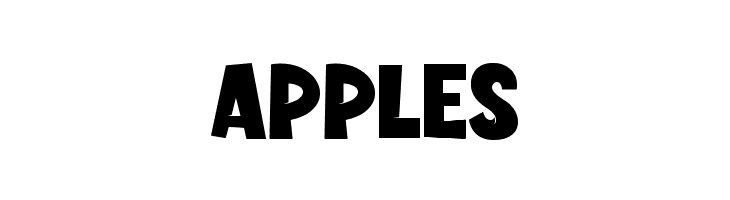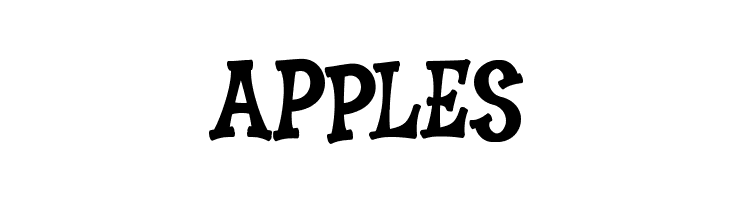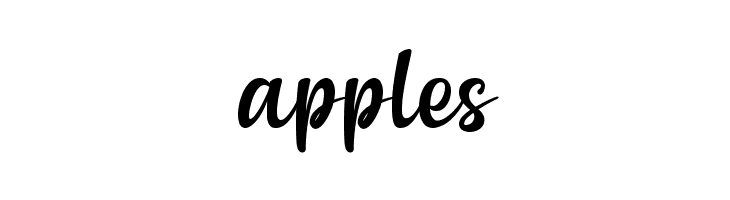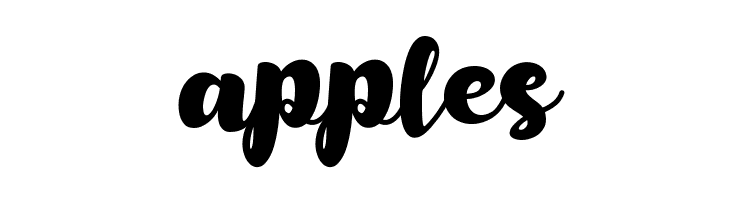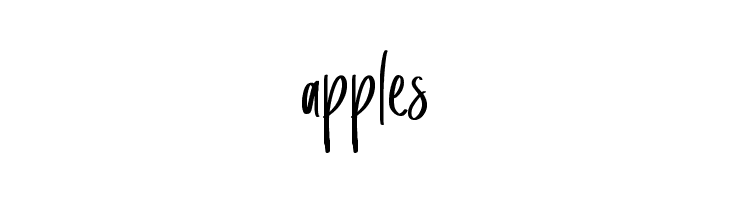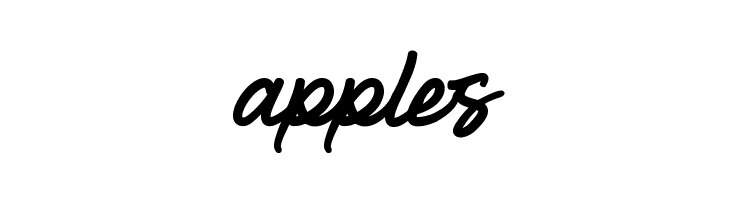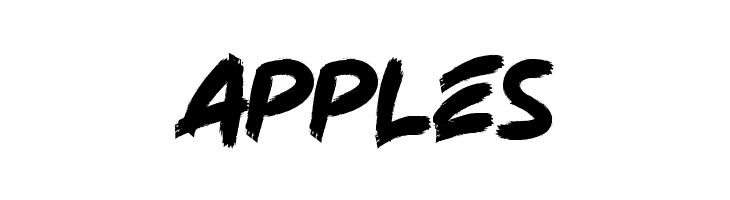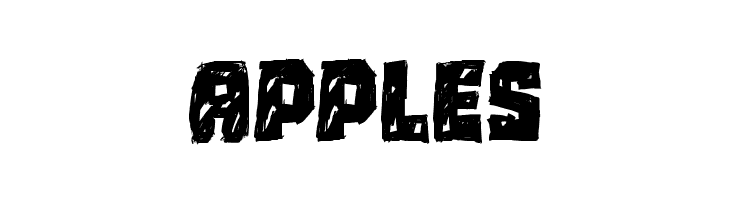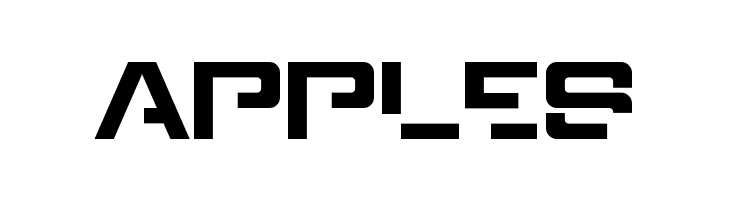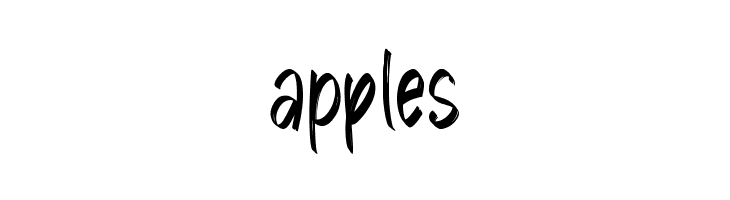
A bold, dynamic script font with flowing, cursive letterforms.
A graceful, handwritten script font with elegant, flowing strokes.
A bold, distressed font with a rugged, grunge-like appearance.
A bold, cursive font with a smooth, flowing handwritten style.
A delicate and flowing script font with elegant, fluid letterforms.
A playful and artistic font with unique, dynamic letterforms.
A bold, geometric font with strong, angular shapes ideal for impactful headlines.
A bold, dynamic font with a playful, edgy style and exaggerated serifs.
A bold, brush-style font with an energetic and artistic appearance.
A playful, handwritten font with tall, narrow letters and a casual elegance.
A dynamic and flowing script font with elegant, cursive strokes.
A bold, flowing script font with smooth, connected strokes and rounded edges.
A bold, flowing script font with a modern calligraphic style.
A bold, textured font with a bandage-like design, perfect for thematic and creative projects.
Bold, rounded handwritten font with a playful and casual style.
A bold, geometric font with a modern and dynamic style.
A bold, geometric font with a futuristic and industrial design.
A bold, expressive brush-style font with dynamic, hand-painted strokes.
A flowing, cursive font with elegant loops and a handwritten appearance.
A bold, playful font with a cartoonish style and dynamic character shapes.
A bold, expressive brush-style font with dynamic, hand-painted strokes.
A decorative, textured font with whimsical curls and a hand-drawn feel.